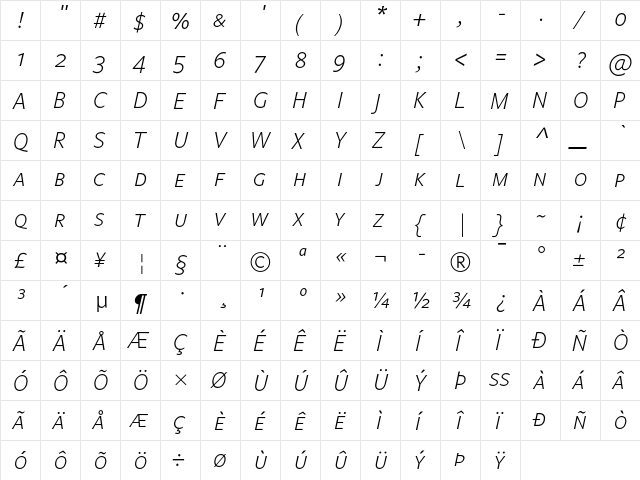
Legato SC Light Italic
Design Context for Legato Typeface
Legato is a composed and adaptable typeface that performs quietly and consistently across a wide range of design contexts. Its italic angle brings a sense of urgency and motion to the letterforms. Its slender proportions lend an understated elegance to any composition.
Pro Tip: Use Legato for emphasis, pull quotes, and subheadings where its slanted energy can add rhythm to the layout.